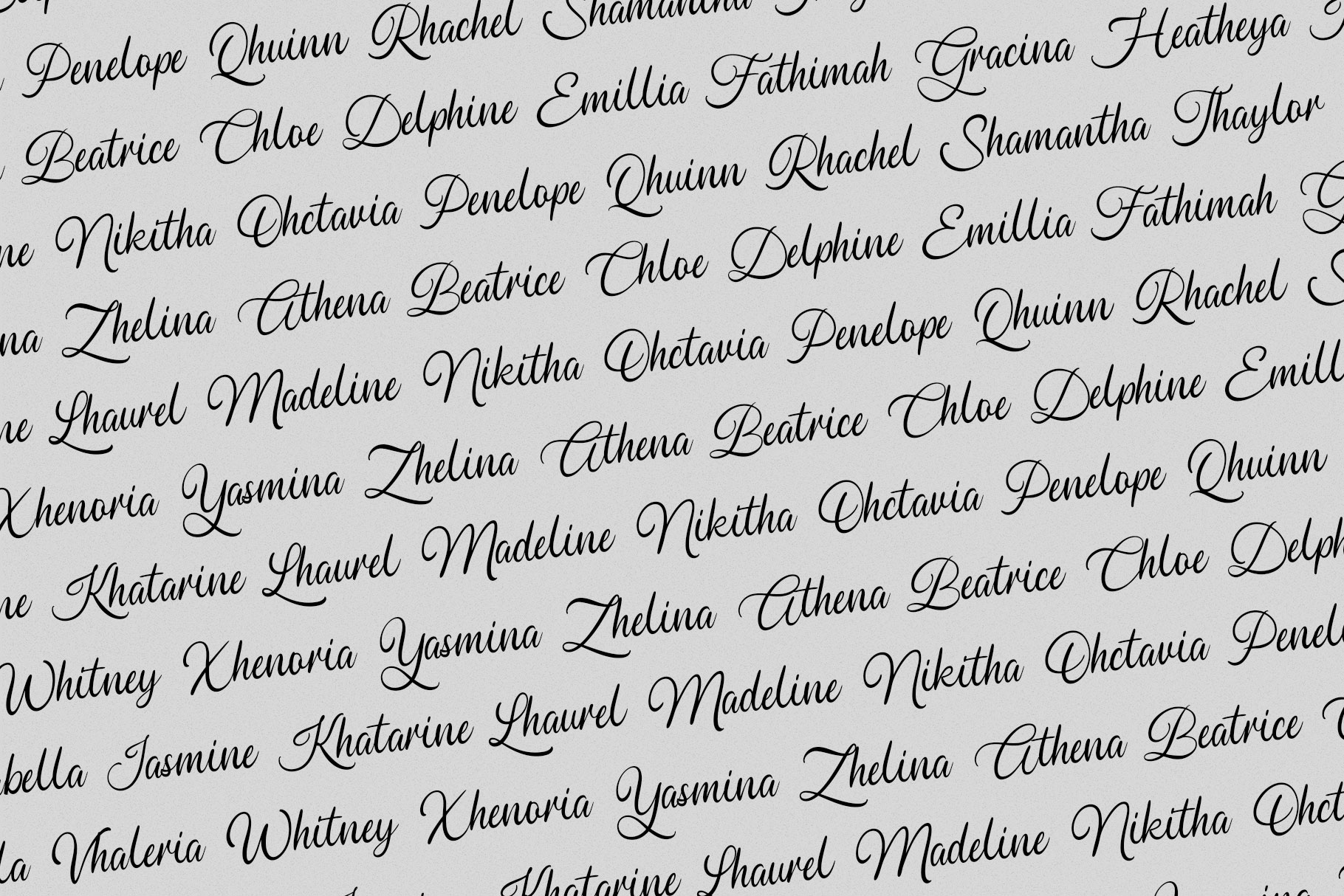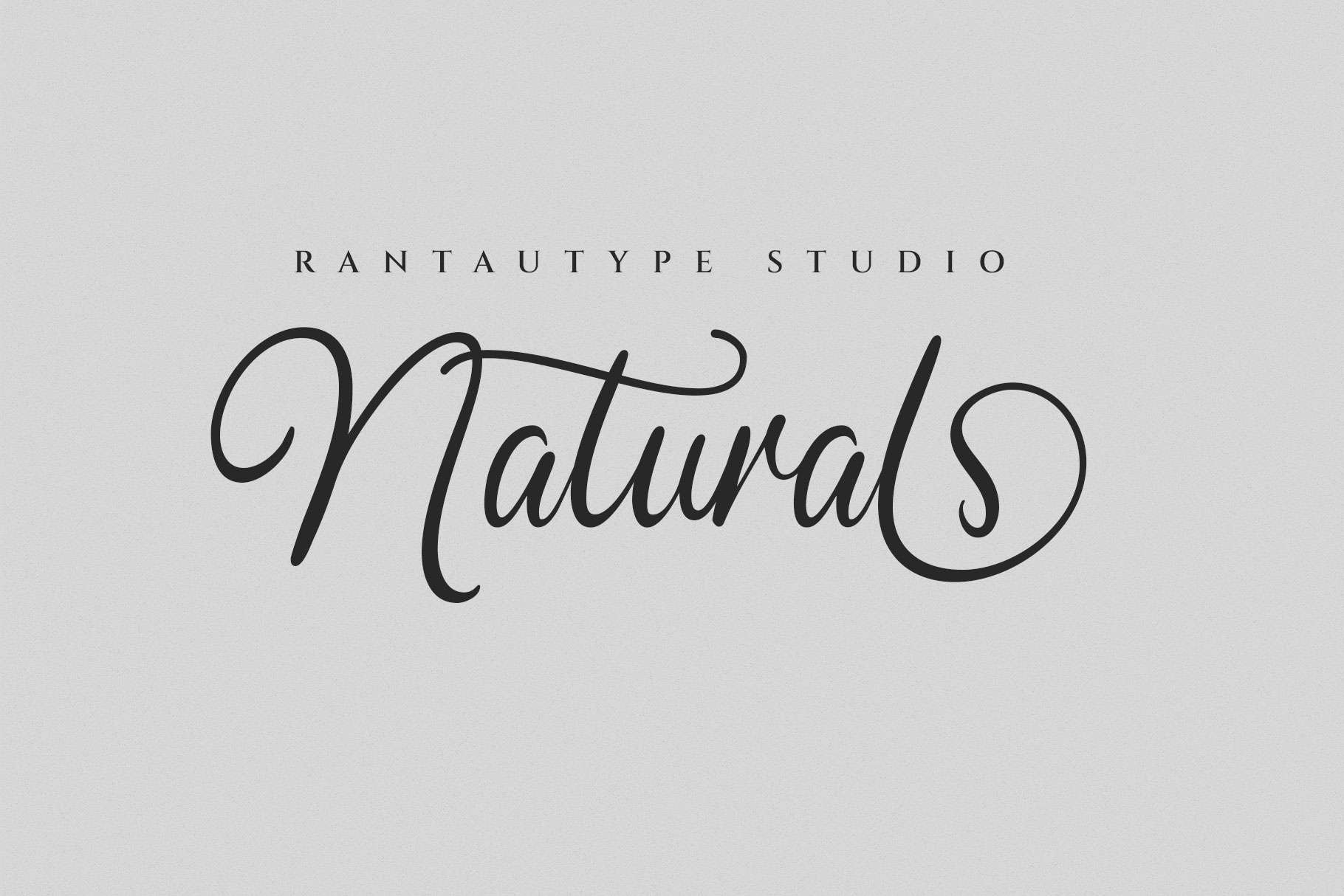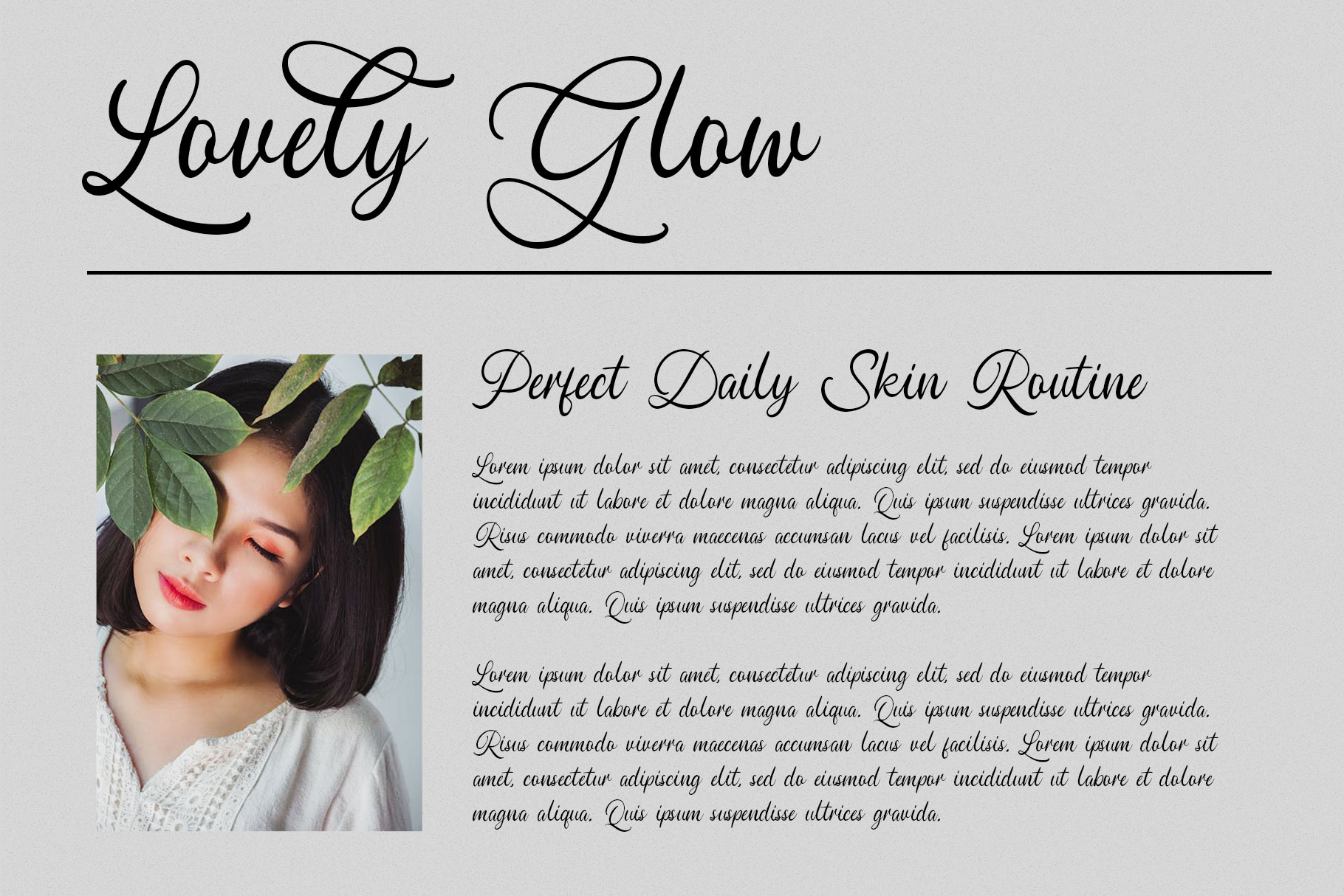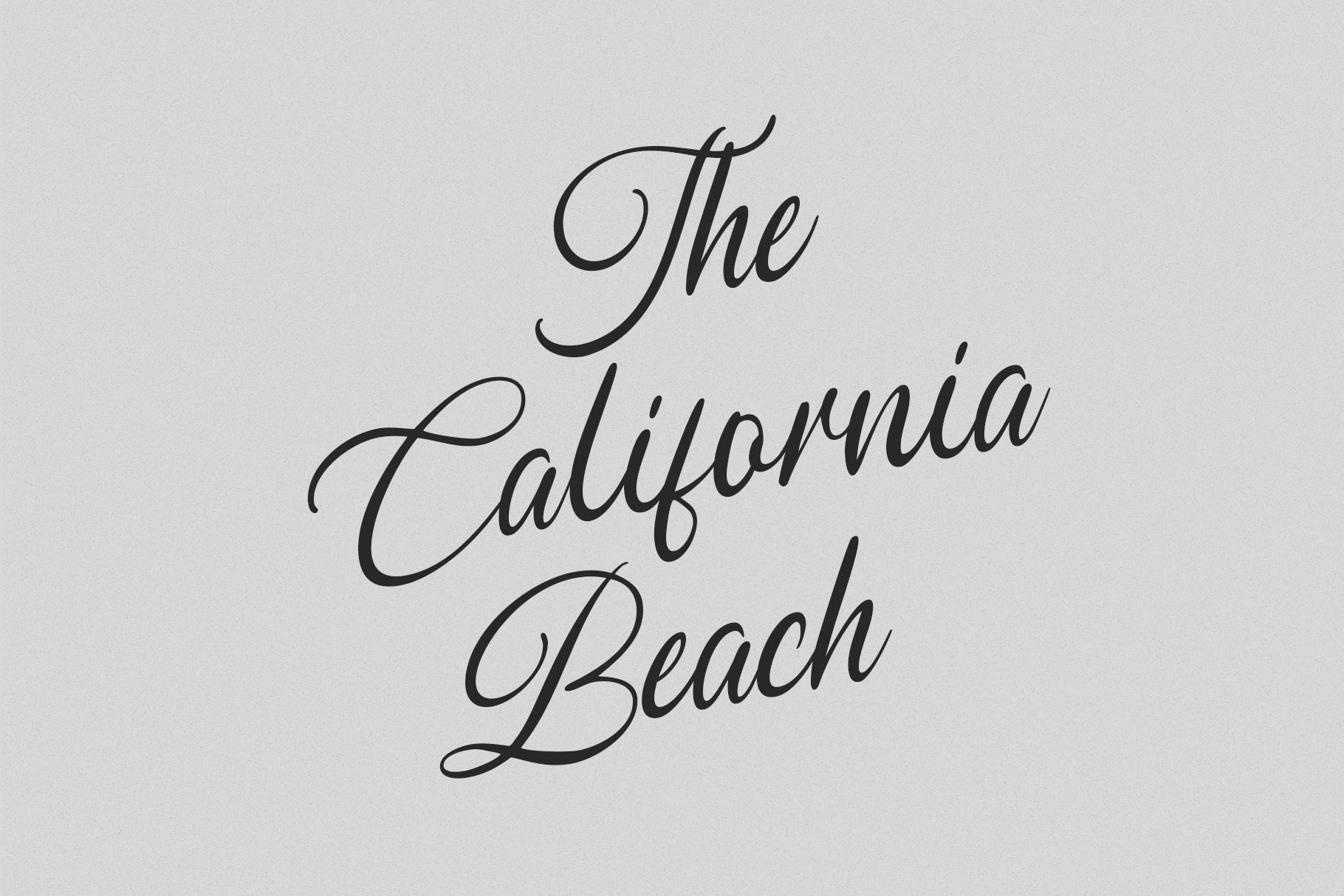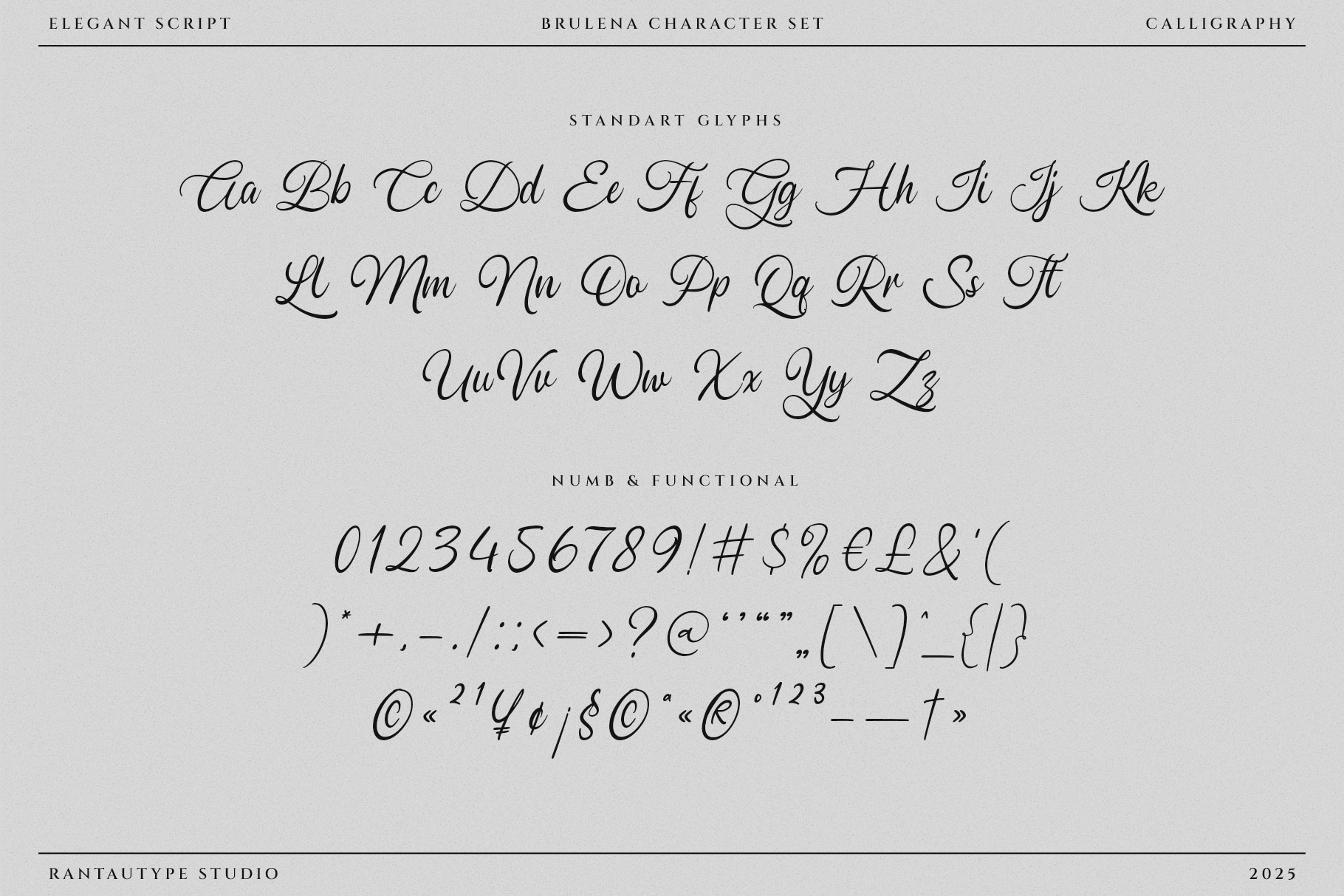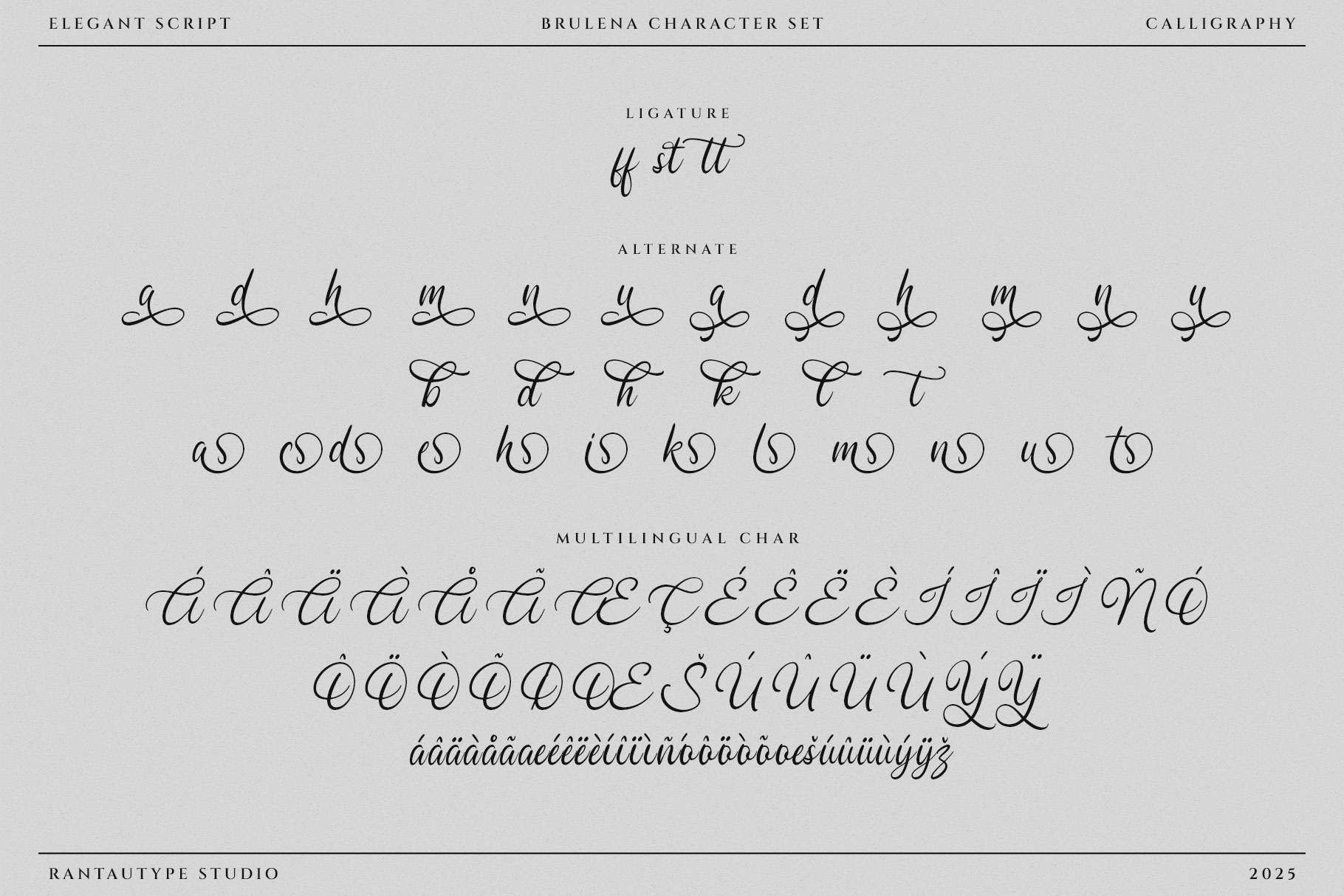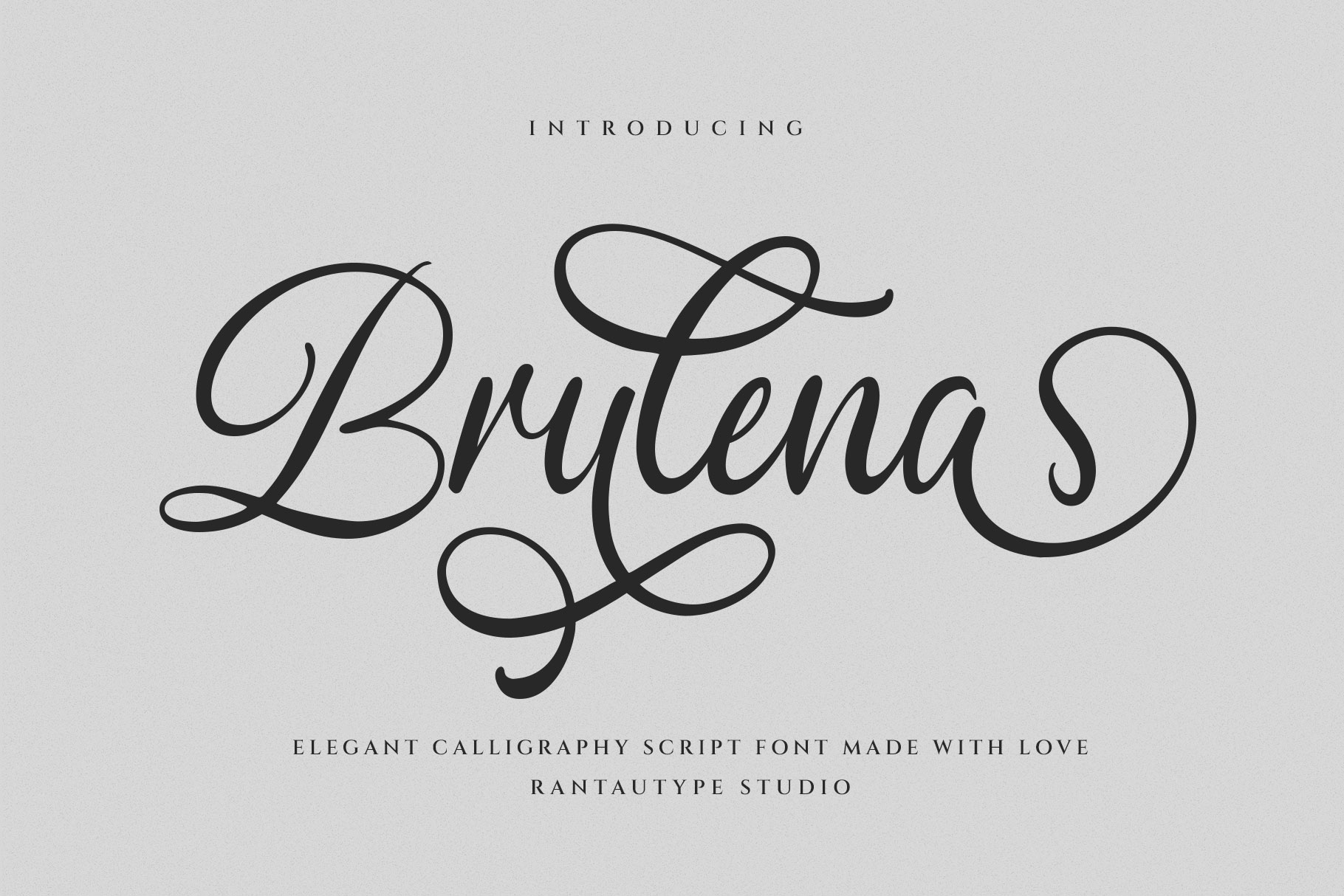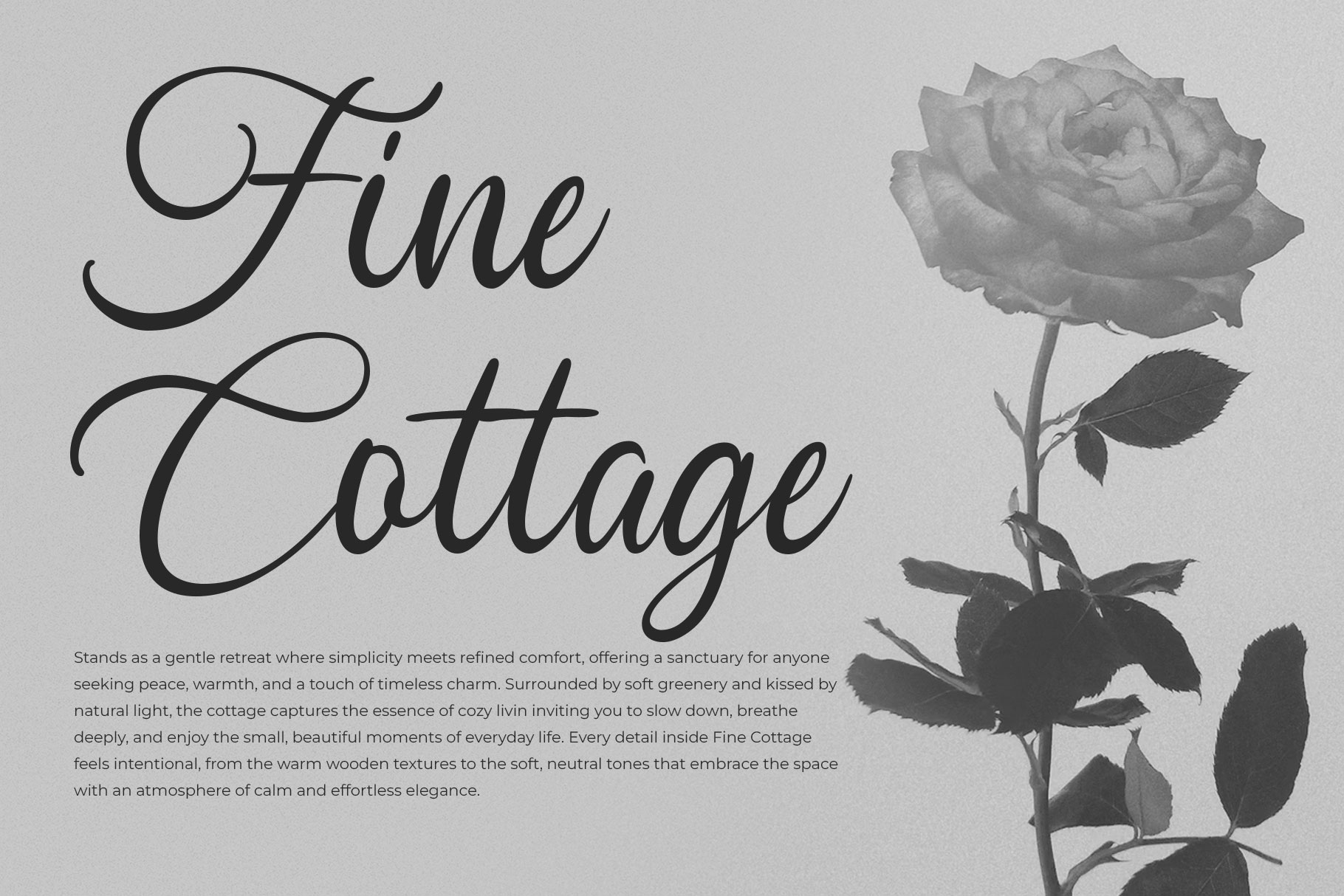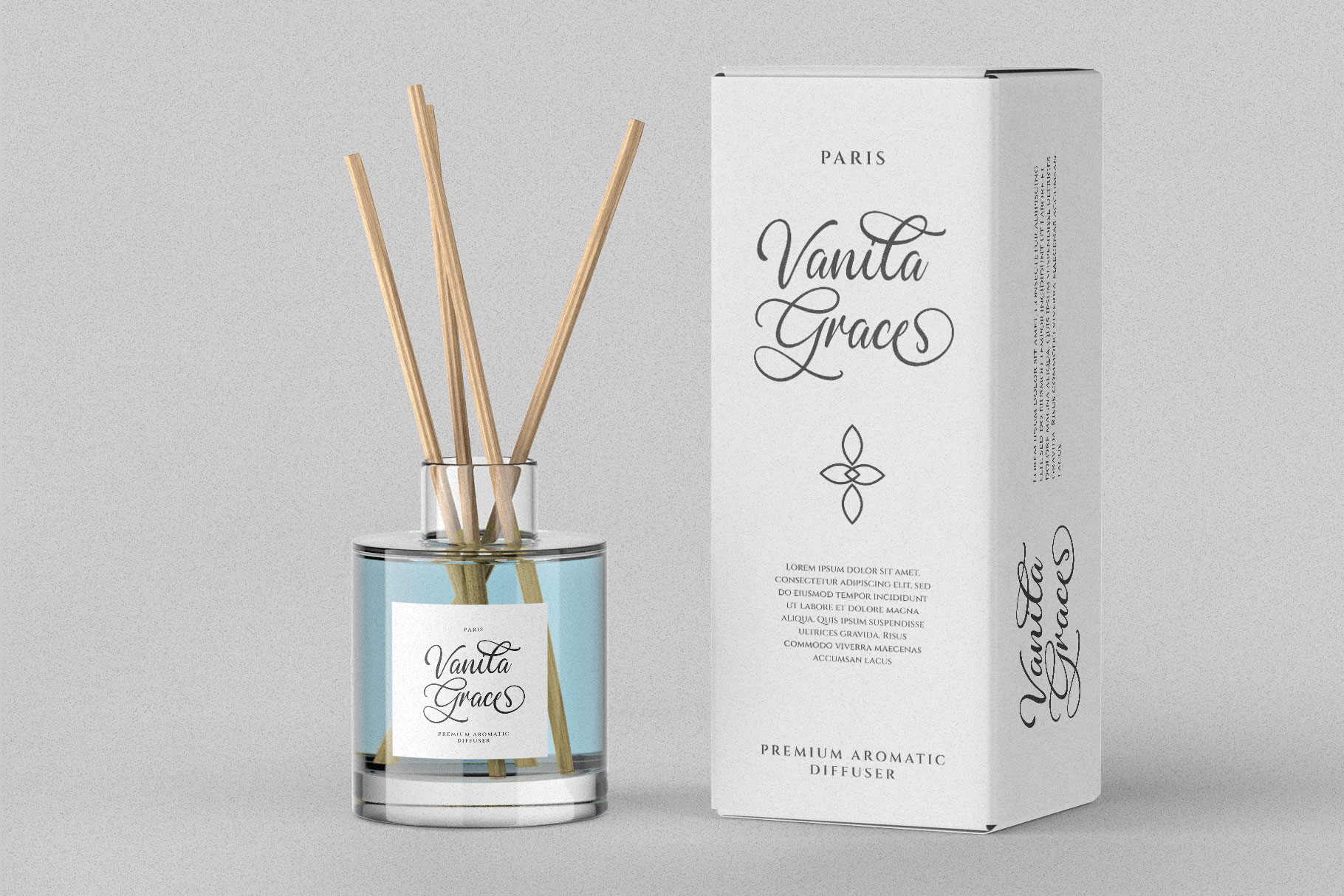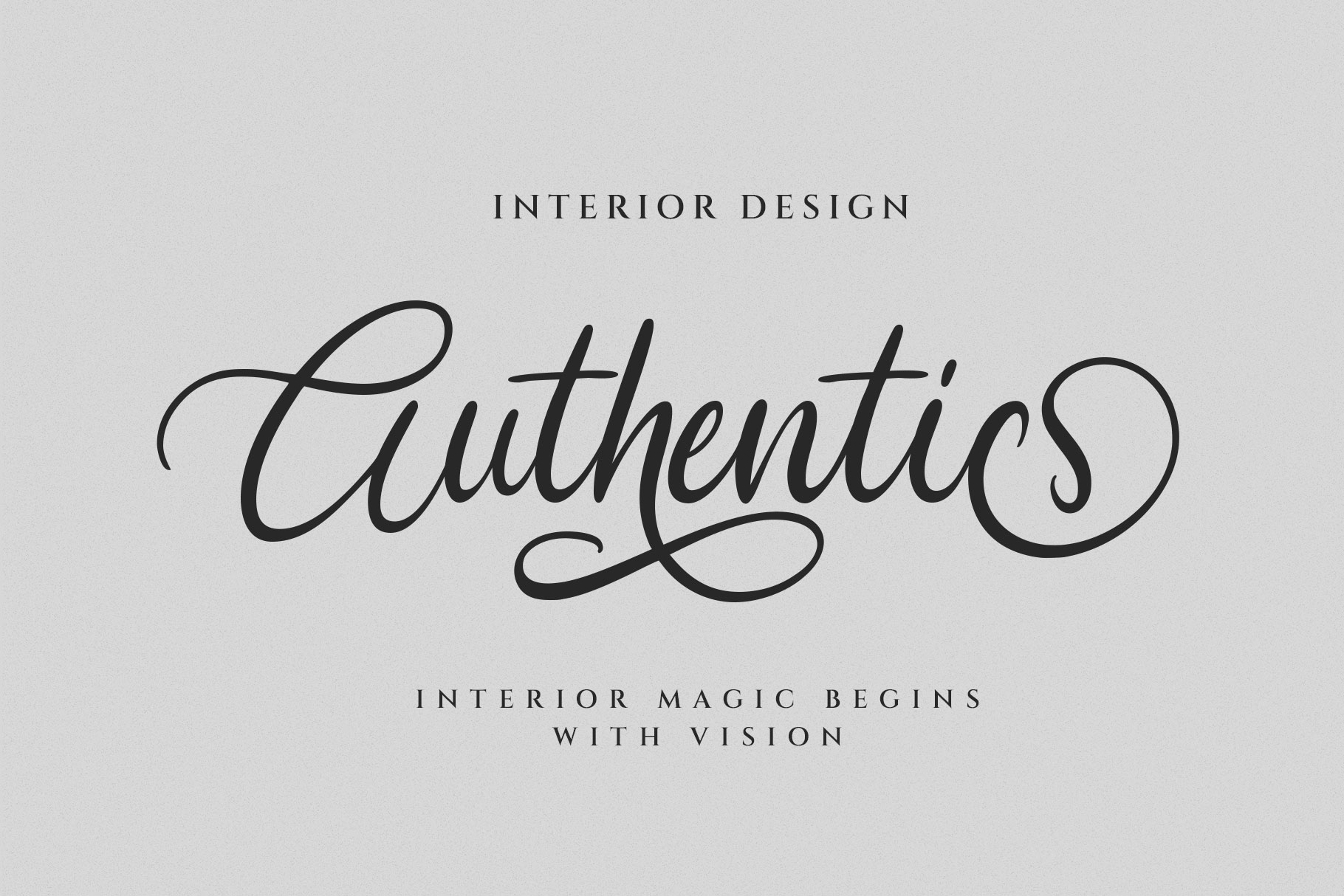
Brulena Elegant Calligraphy Font
Brulena is beautiful calligraphy font with celebration of timeless artistry, refined strokes and graceful movement. Brulena come with delicate rhythm of handwritten beauty, this font blends classic calligraphic techniques with modern sophistication, creating a visual harmony that feels both luxurious and heartfelt.
Brulena is a perfectly choice for any creative endeavor, creating, modern, lifestyle design such as logotype, title, cover, branding, invitations, wedding designs, display and magazine, social media posts, advertisements, printed quotes, product packaging, corporate brand, product designs, labels, photography, watermarks, special events and any other project with modern touch.